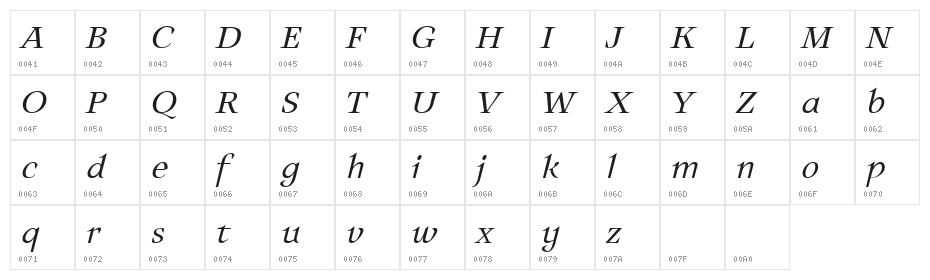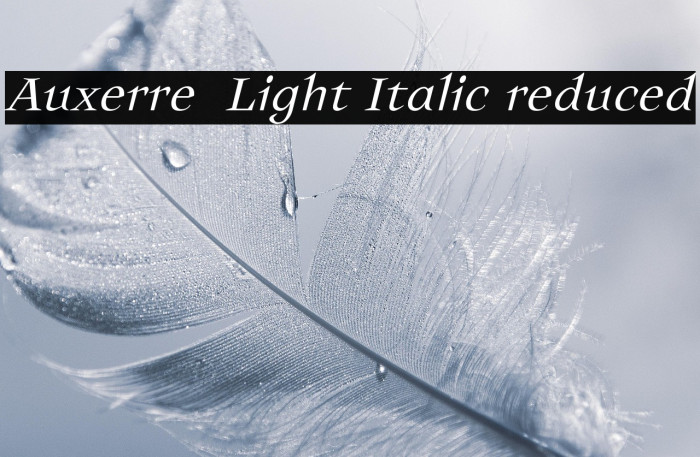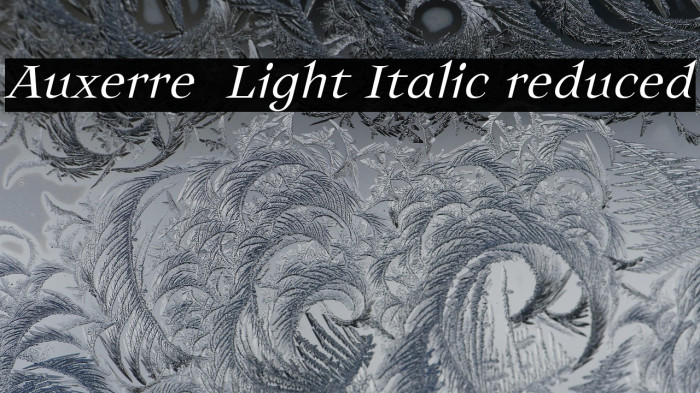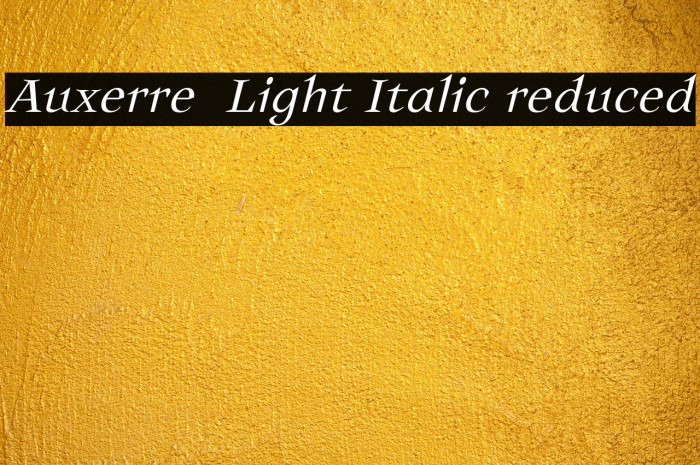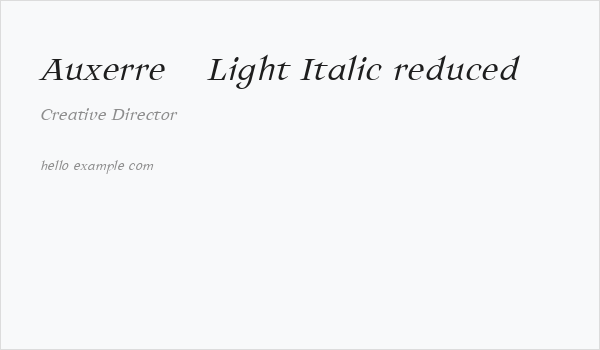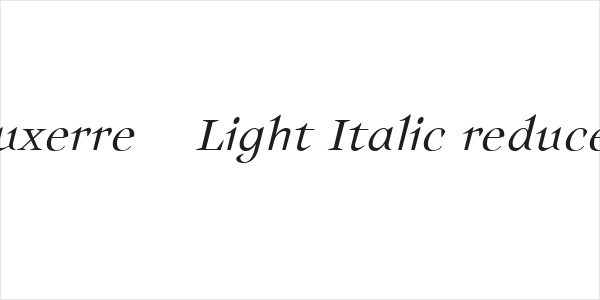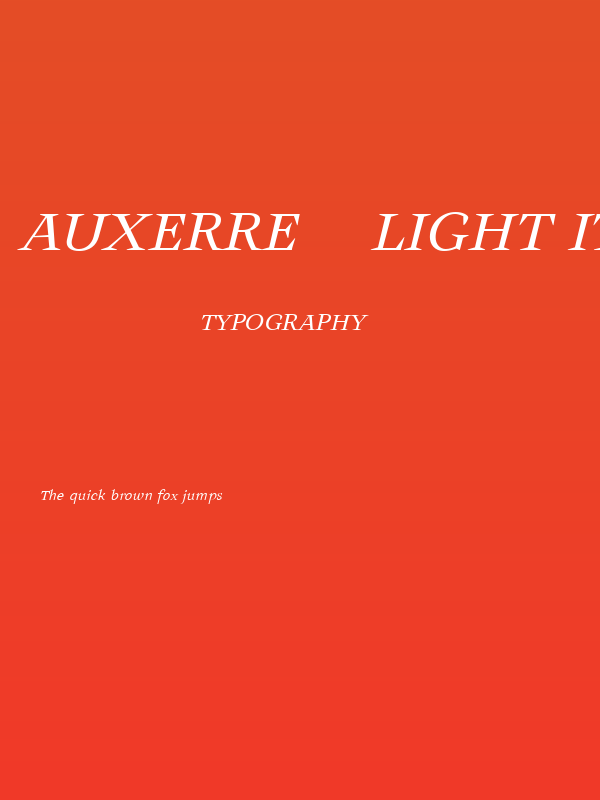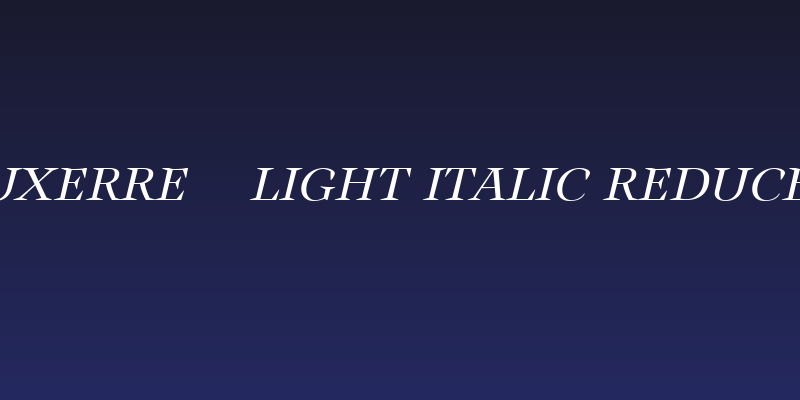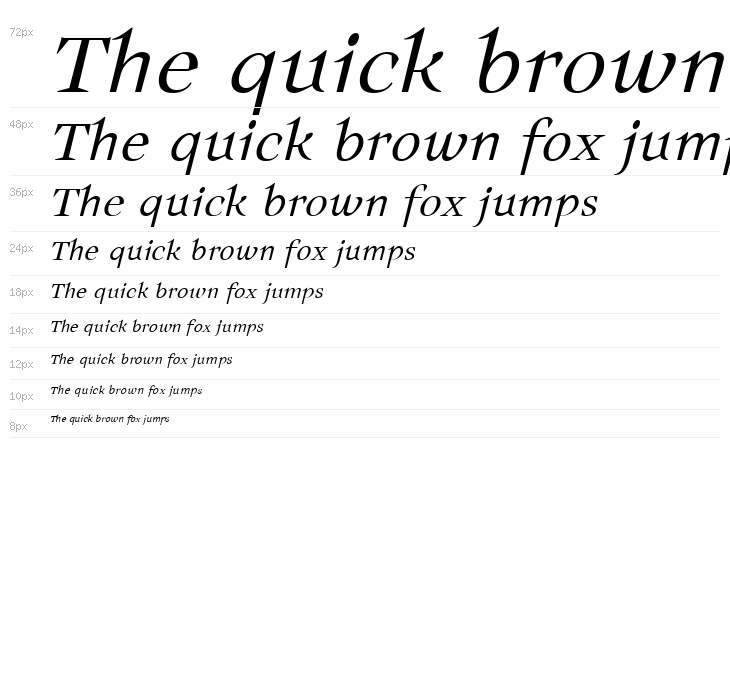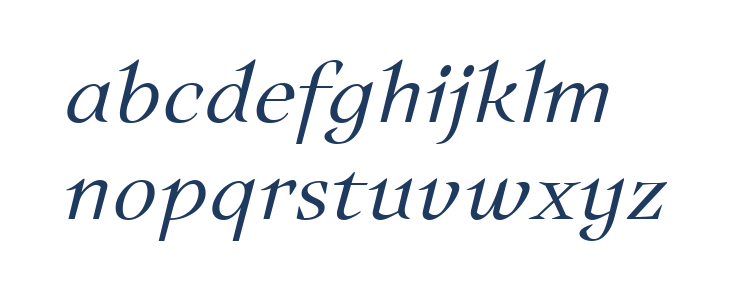
Auxerre 46 Light Italic reduced Font
Auxerre 46 Light Italic reduced Description
This elegant serif font features a refined and sophisticated design, characterized by its light weight and italic style. The letters are gracefully slanted, adding a sense of motion and fluidity to the text. The strokes are thin and delicate, yet maintain a clear and readable form. The font's overall appearance is classic and timeless, making it suitable for a variety of formal and professional applications. The character spacing is normal, ensuring readability while maintaining an elegant aesthetic. This font's high contrast between thick and thin strokes enhances its legibility and visual appeal.
| Proposed Projects | Ideal for use in formal invitations, elegant branding, editorial design, and high-end product packaging. |